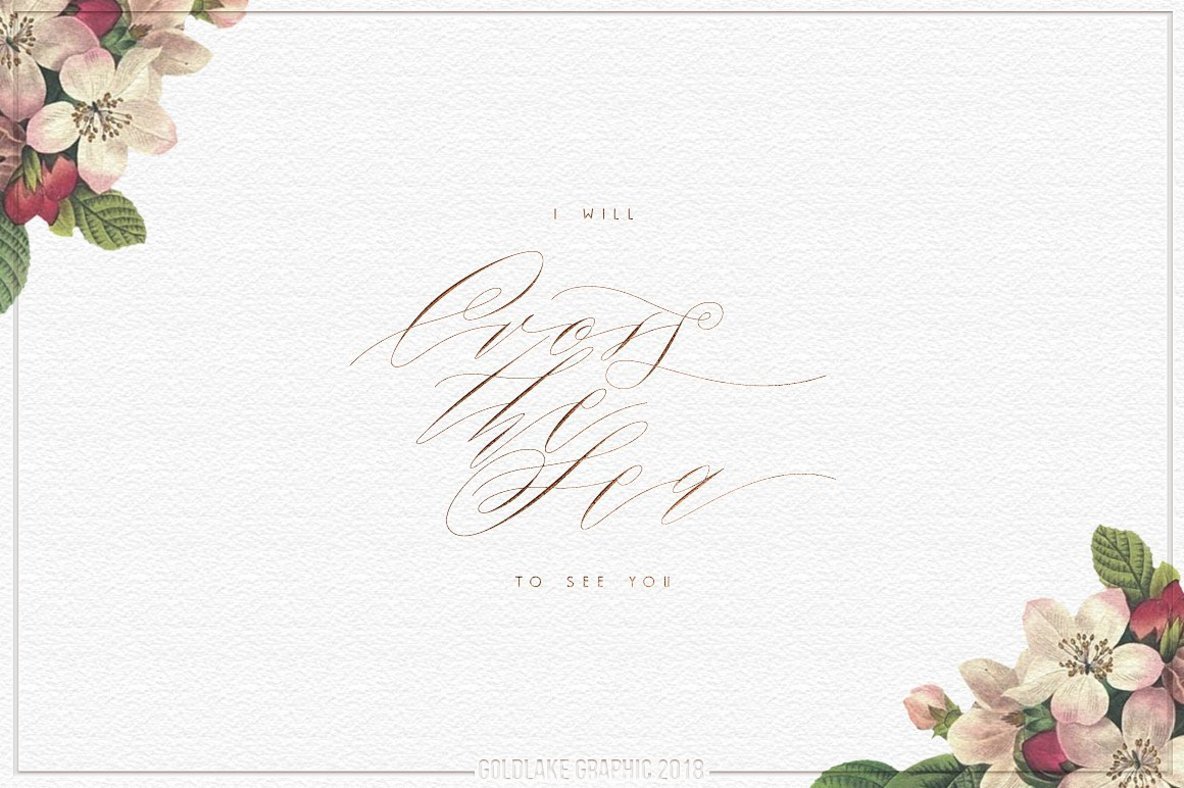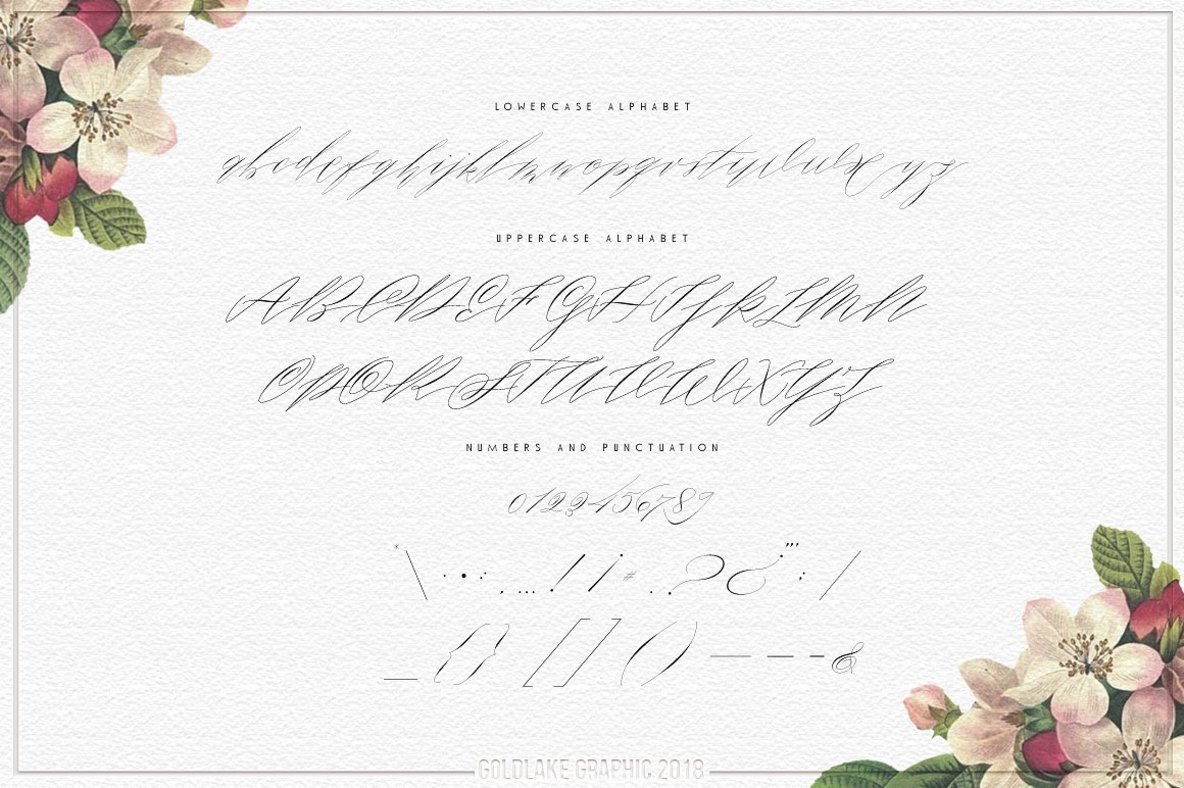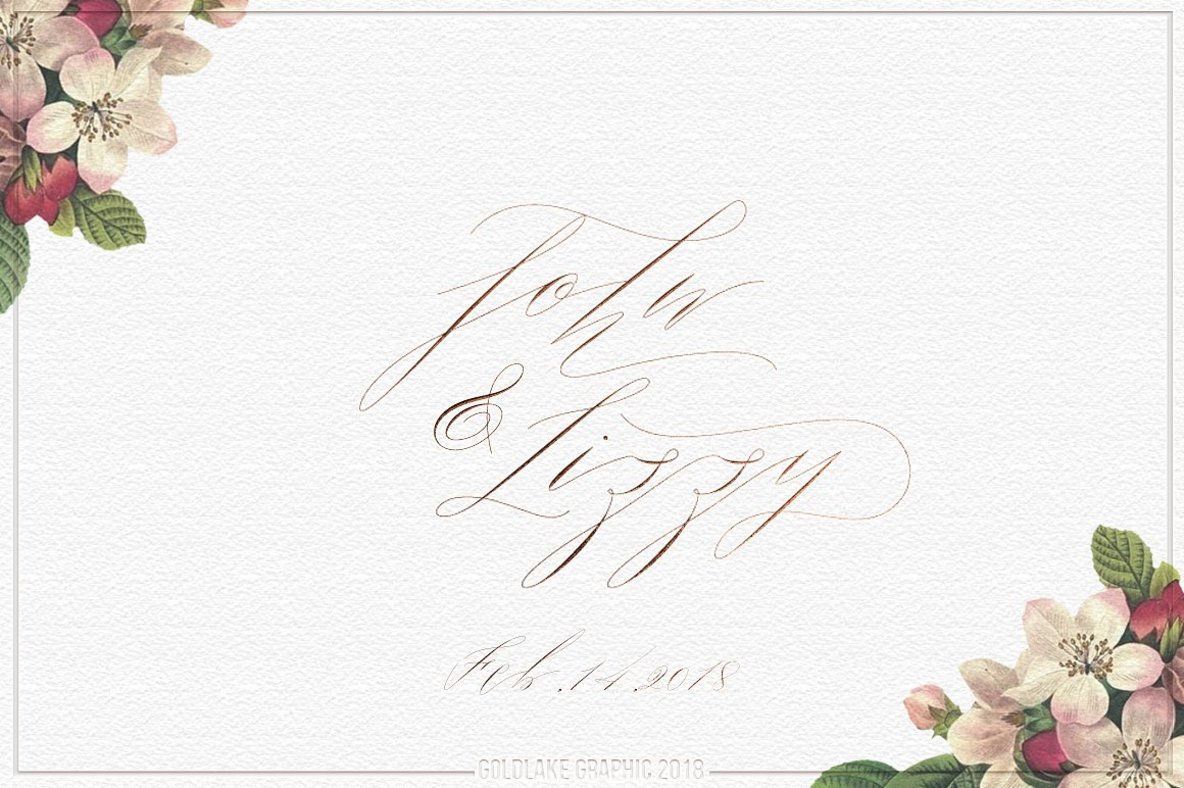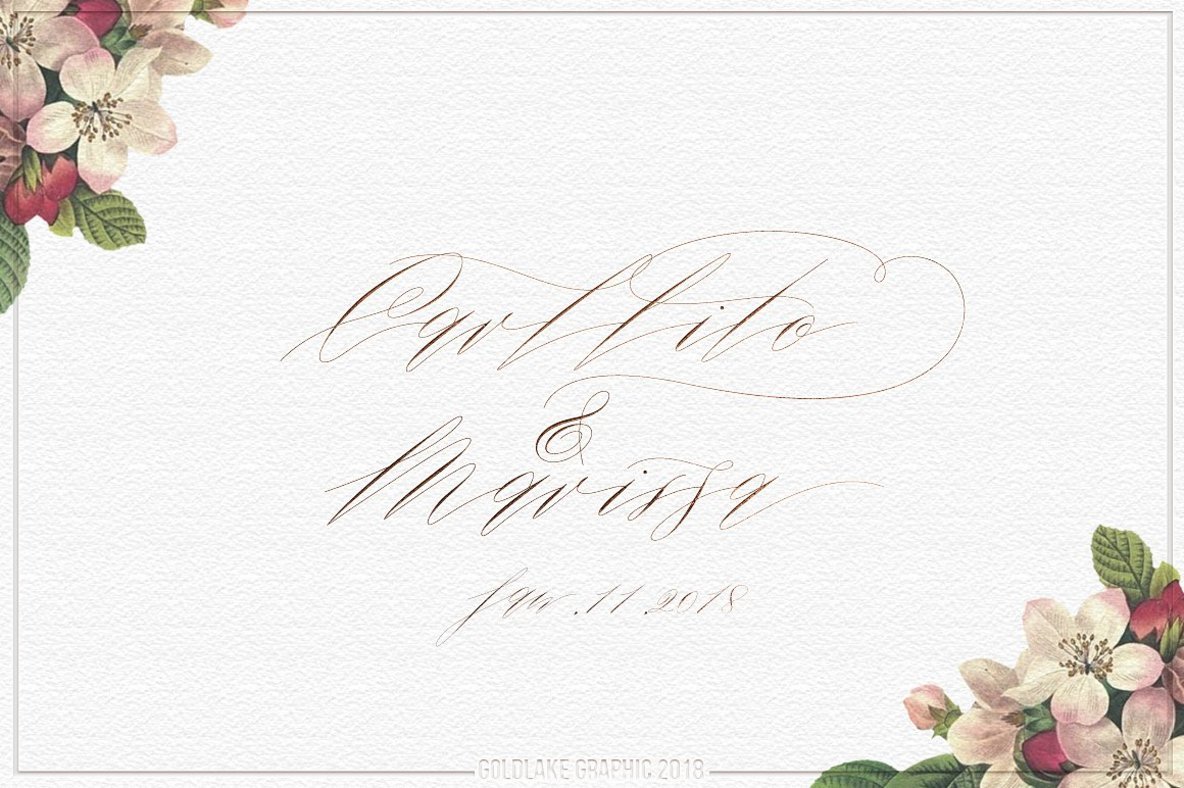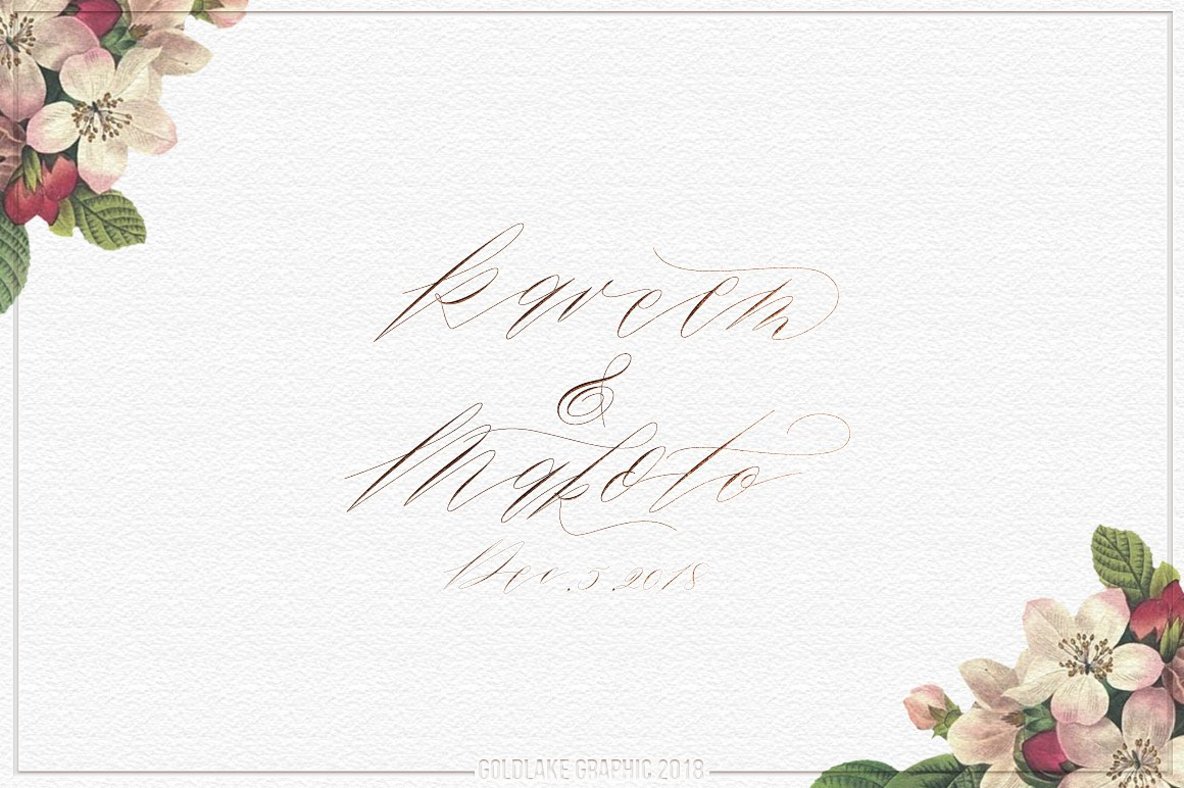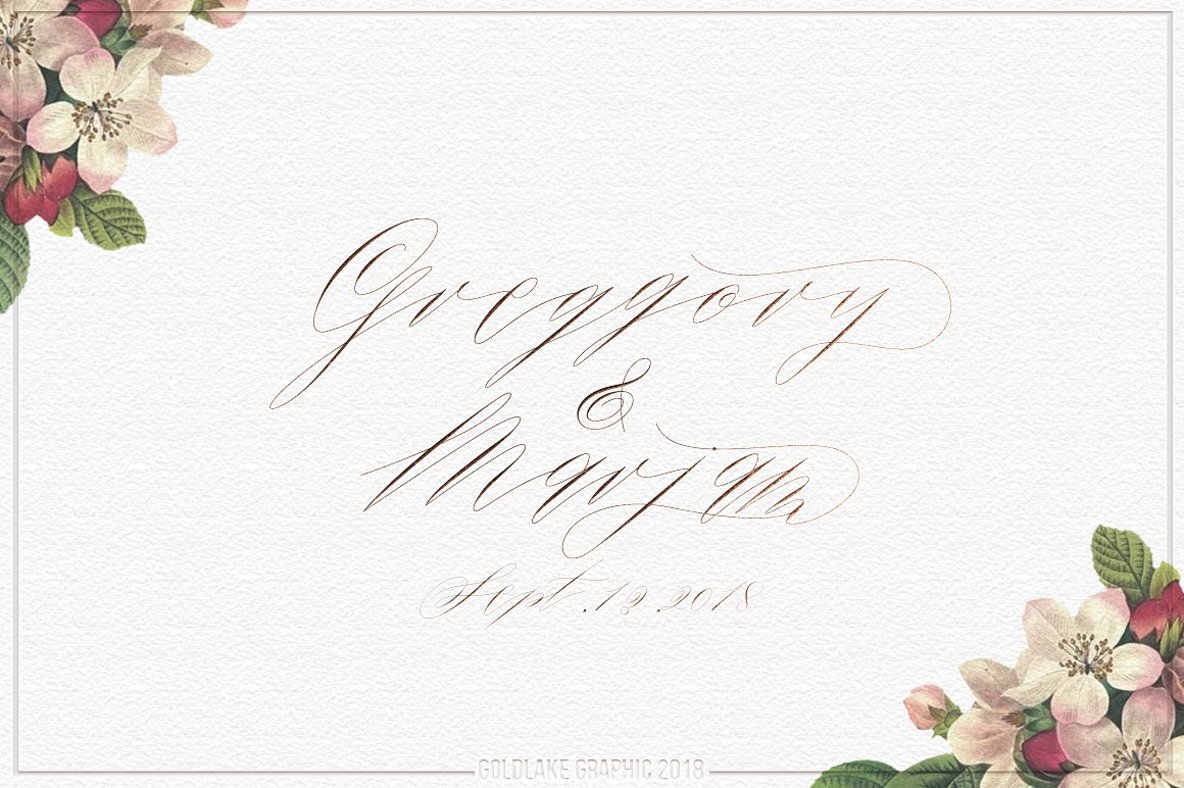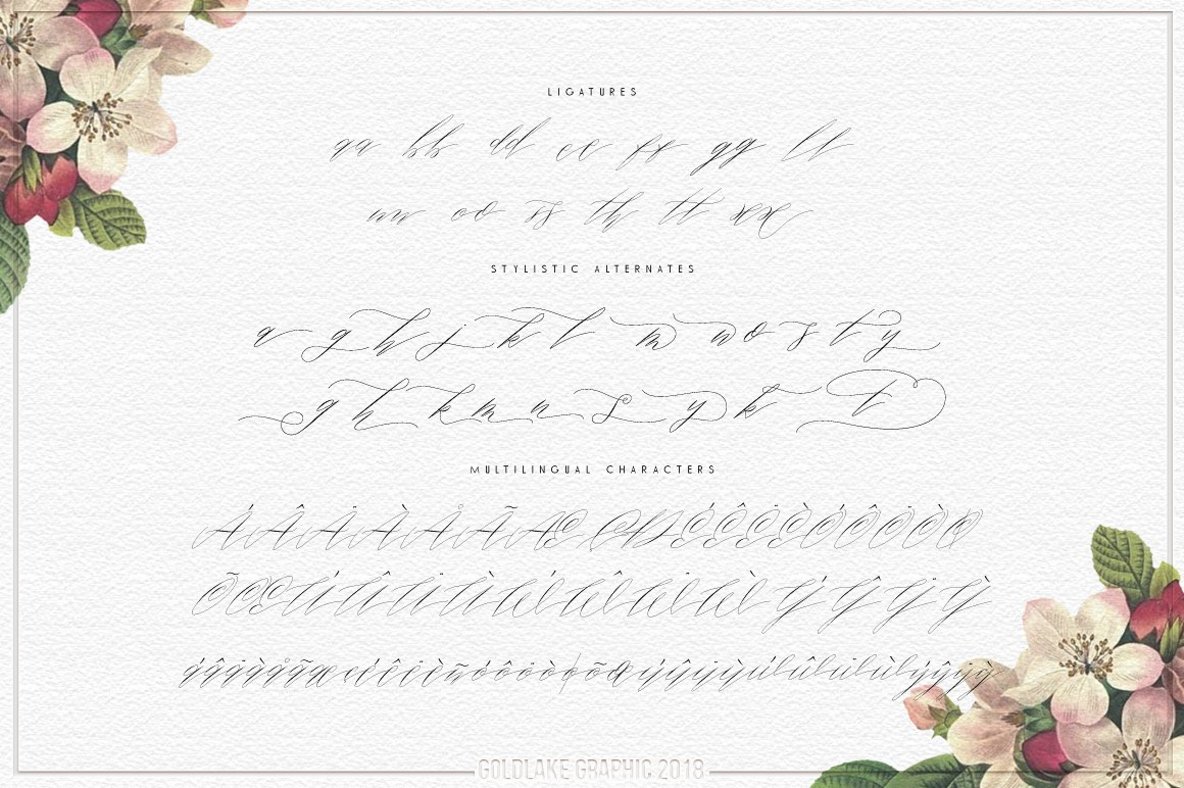
Roosy Script Font
Roosy Script
Introducing Roosy Script, a font that seamlessly blends the charm of traditional handwriting with the elegance of modern calligraphy. Ideal for wedding design projects, Roosy Script brings a personal touch to invitations, save-the-dates, and more. For designers using software that supports OpenType features, such as Adobe Illustrator and Photoshop, accessing the full range of glyphs and alternates is straightforward. Open the glyphs panel to explore the diverse characters and designs Roosy Script offers.Roosy Script: A Modern Calligraphy Font